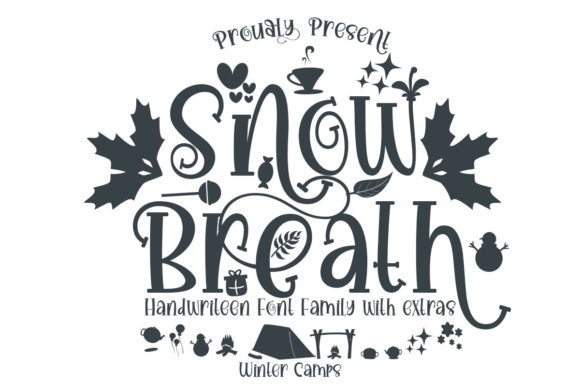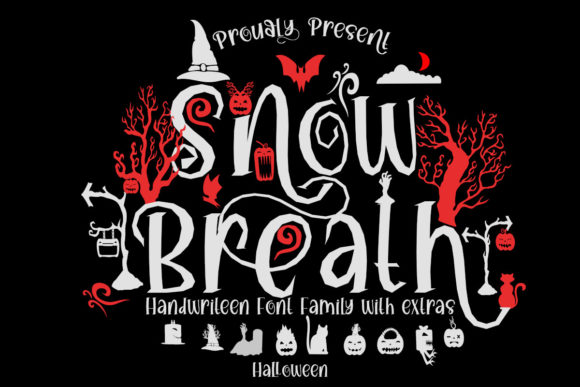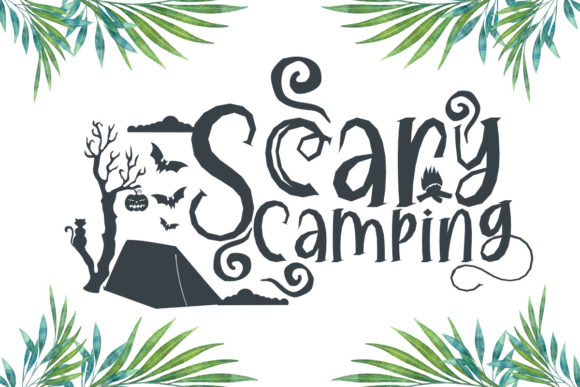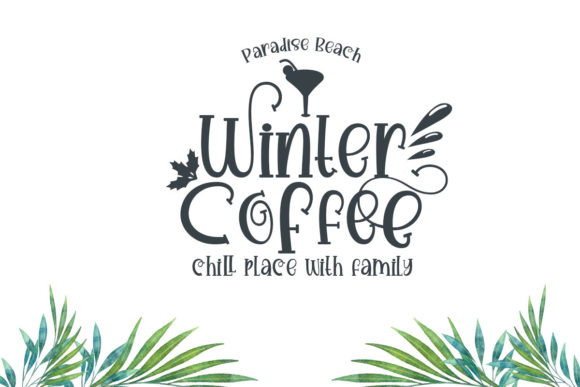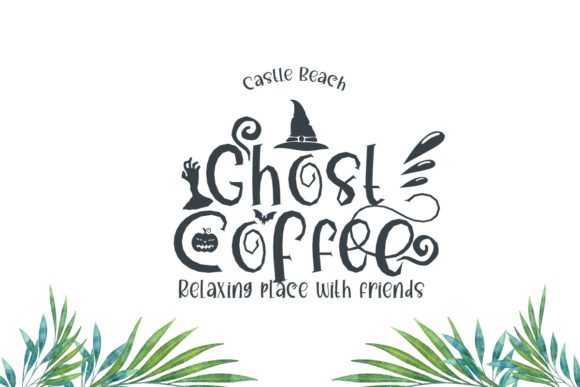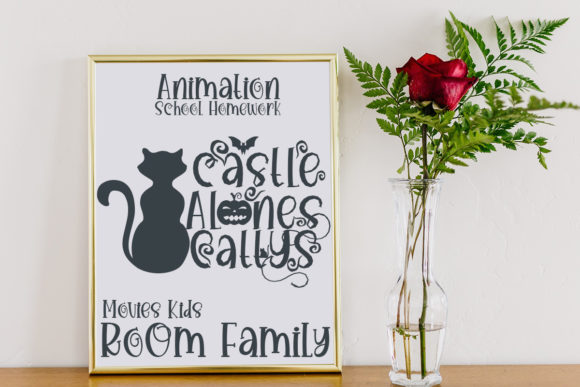
Introduction to Snow Breath Font
Snow Breath is an exciting duo font family (serif and dingbats) with lovely different styles and accents that can elevate any crafty idea.
Use it for horror storybooks, titles, winter designs, Halloween projects, or more .